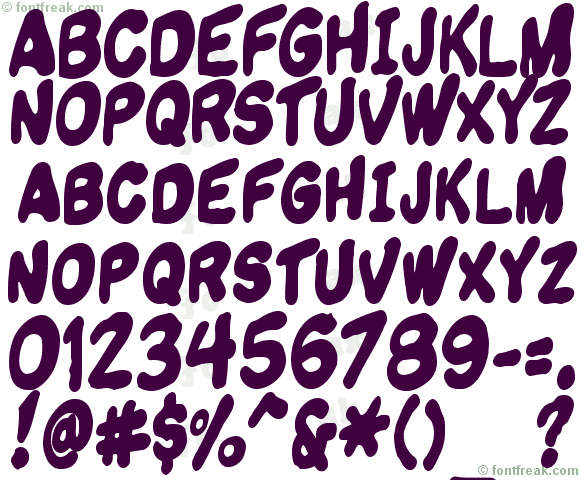
Komikandy
About Komikandy
The Komikandy font, created by Apostrophic Labs, is a playful display typeface that embodies a whimsical and cartoonish aesthetic. This font features bold, rounded letterforms with a consistent stroke weight, making it visually striking and easy to read. The lack of sharp edges contributes to its friendly appearance, while the slightly irregular, hand-drawn quality adds a touch of charm and personality. The spacing between characters is balanced, enhancing legibility while maintaining its fun vibe, which is ideal for capturing attention.
The Komikandy font is perfect for a variety of creative projects. It's an excellent choice for children's book covers, where its playful nature can engage young readers. Additionally, it works wonderfully for comic strips or graphic novels, adding a lively energy to dialogues and narratives. Restaurant menus, especially those targeting a family-friendly audience, can benefit from the approachable feel of this font, making the dining experience seem inviting. Furthermore, it can enhance promotional materials for events like birthday parties or local fairs, ensuring that the messaging feels festive and fun.
What sets the Komikandy font apart is its ability to evoke a sense of nostalgia while remaining fresh and contemporary. Its unique character can elevate any design, making it a standout choice for those looking to capture attention and convey a playful spirit. For those interested, a Komikandy font free download is readily available, making it easy to incorporate this delightful typeface into your next project.